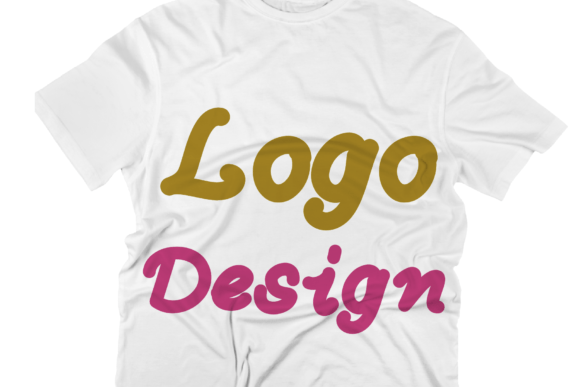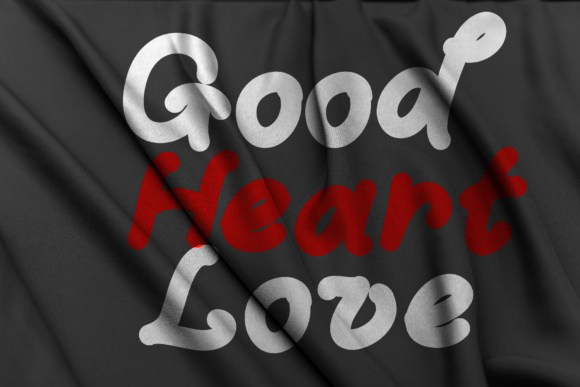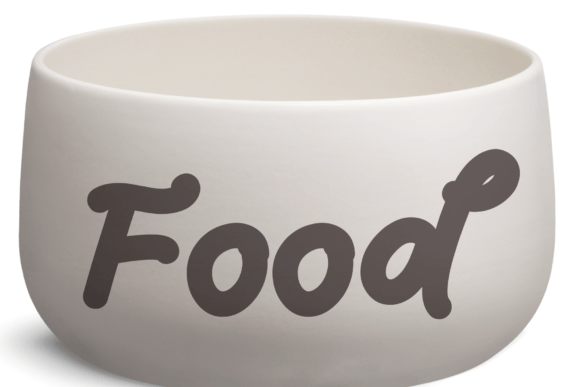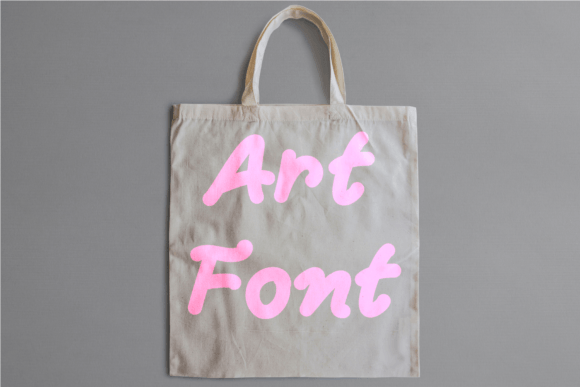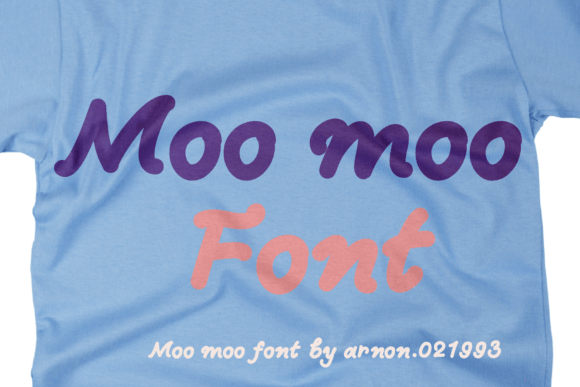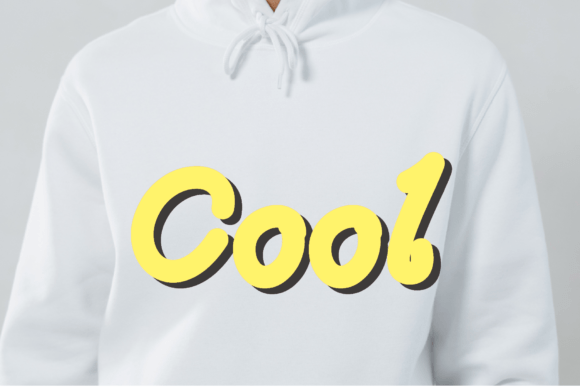
Introduction to Moo Moo Font
Have you ever been stuck in a design rut, desperately searching for the perfect font to bring your creative project to life? I know I have. And then, one day, I stumbled upon the Moo Moo Font – a game-changing, high-quality design resource that has been a breath of fresh air for designers like me.
As a designer, I’m always on the lookout for fonts that are not only stylish but also versatile. And that’s exactly what the Moo Moo Font delivers. Suitable for both professional-looking projects and casual designs, this font is a true gem in the world of design resources. With its playful and youthful spirit, the Moo Moo Font is the perfect addition to any creative project, from branding designs to social media posts.
What I love most about the Moo Moo Font is its PUA encoding, which makes it easy to access all the amazing glyphs and ligatures. Plus, with a transparent background, you can seamlessly integrate it into your design without any fuss. And the best part? It’s available for free download, making it an absolute must-have for any designer looking to elevate their designs.
Key Features of Moo Moo Font
- High-quality design resource for creative projects, offering a unique and stylish aesthetic.
- Transparent background option for seamless integration into designs, allowing for easy layering and composition.
- Customizable and editable, allowing designers to tailor the font to their specific creative project needs.
Honest Review: Moo Moo Font
I recently had the chance to work with the Moo Moo Font, a popular design resource for creative projects. Overall, I found it to be a high-quality addition to my design arsenal.
Here are some of the things that work well with the Moo Moo Font:
- ✨ The font offers a wide range of styles and weights, making it versatile for various design applications.
- ✨ The transparent background option allows for easy layering and manipulation in design software.
Overall, I was impressed with the Moo Moo Font’s design and functionality. It’s a great resource for designers looking for a high-quality, free font. However, it’s essential to be aware of the potential limitations and licensing restrictions before using it in a creative project.
Moo Moo Font: A High-Quality Design Resource
Common Use Cases for Moo Moo Font
Moo Moo Font is perfect for various creative projects, including:
- Presentations and slides
- Use a transparent background for a clean and modern look
- Combine Moo Moo Font with other design elements for a unique look